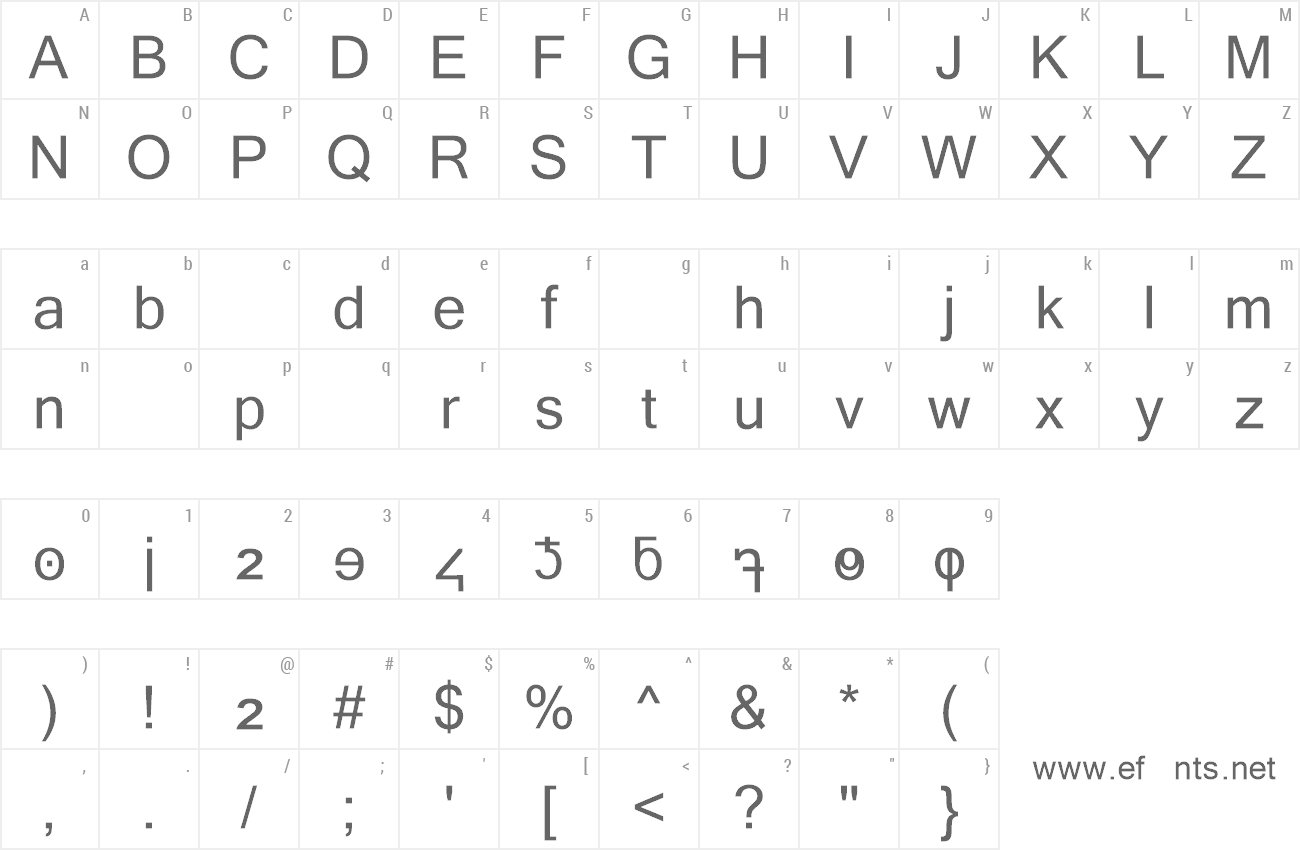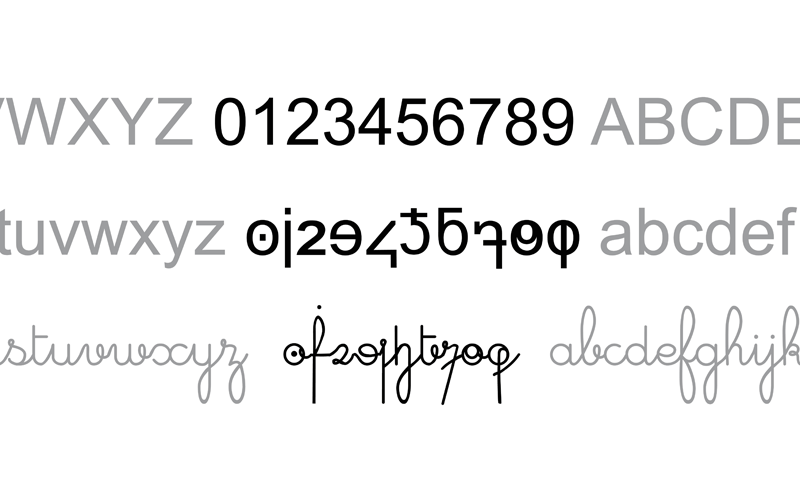
| Note by Cédric Dequidt | |
minuscule digits creation of minuscule digits and cursive digits why the numbers don't have lower case and cursive? chiffres minuscules création de chiffres minuscules et chiffres cursives pourquoi les chiffres n'ont pas de miniscules et de cursives ? THIS IS NOT A NEW FONT, IT'S A NEW WAY TO WRITE CECI N'EST PAS UNE NOUVELLE TYPO, C'EST UNE NOUVELLE FACON D'ECRIRE |